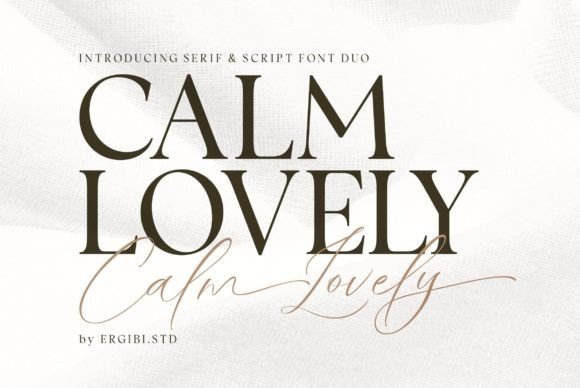
The Ultimate Guide to Calm Lovely Font: Elevate Your Designs with Elegance
Have you ever been in the middle of a design project, and suddenly, you’re stuck on finding the perfect font? I recall a recent experience where I was working on a wedding invitation design, and my client requested a font that exuded luxury and sophistication. After hours of searching, I stumbled upon the Calm Lovely font, and it instantly became my go-to choice. In this article, we’ll dive into the world of Calm Lovely, exploring its features, uses, and everything in between.
What is Calm Lovely Font?
Calm Lovely is a modern duo font, consisting of two types: serif and script. The display serif font is inspired by famous logos and stylish designs, making it perfect for headlines, weddings, social media, logos, posters, packaging, and more. This typeface has been carefully crafted to ensure premium quality and a luxury feel.
• ✅ Elegant and sophisticated design
• ✅ Perfect for luxury brands, weddings, and high-end designs
• ✅ Highly versatile, suitable for various design projects
• ✅ Easy to read, even in smaller font sizes
• ⚠️ Limited use for body text, as it’s best suited for headlines and titles
• ⚠️ May not work well for very small font sizes or low-resolution images
The Designer Inspiration Behind Calm Lovely
Calm Lovely was designed with the intention of creating a font that exudes luxury and sophistication. The designer aimed to create a modern and elegant font that would be perfect for high-end designs, weddings, and luxury brands. The result is a beautiful and versatile font that can be used for a wide range of design projects.
Q: What type of designs is Calm Lovely best suited for?
A: Calm Lovely is perfect for luxury brands, weddings, social media, logos, posters, packaging, and more.
Q: Can I use Calm Lovely for body text?
A: While Calm Lovely is best suited for headlines and titles, it can be used for body text in certain situations. However, it’s recommended to use a clear and readable font for body text.